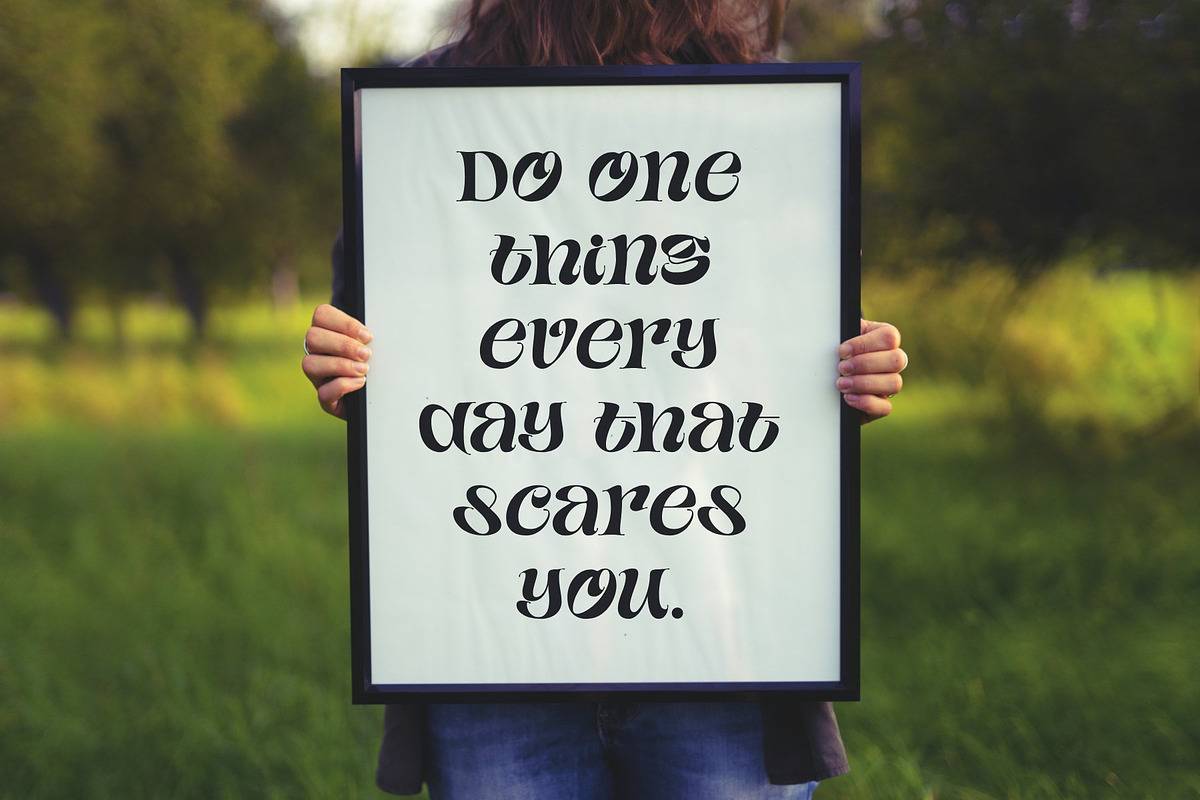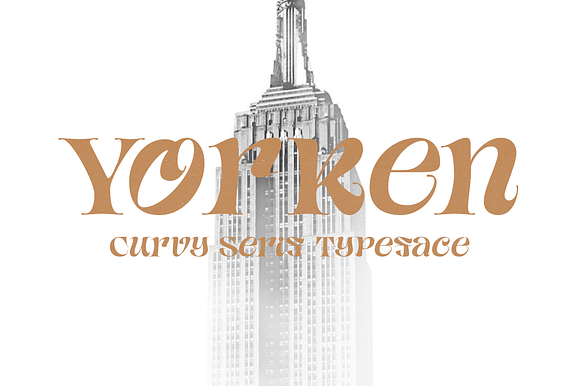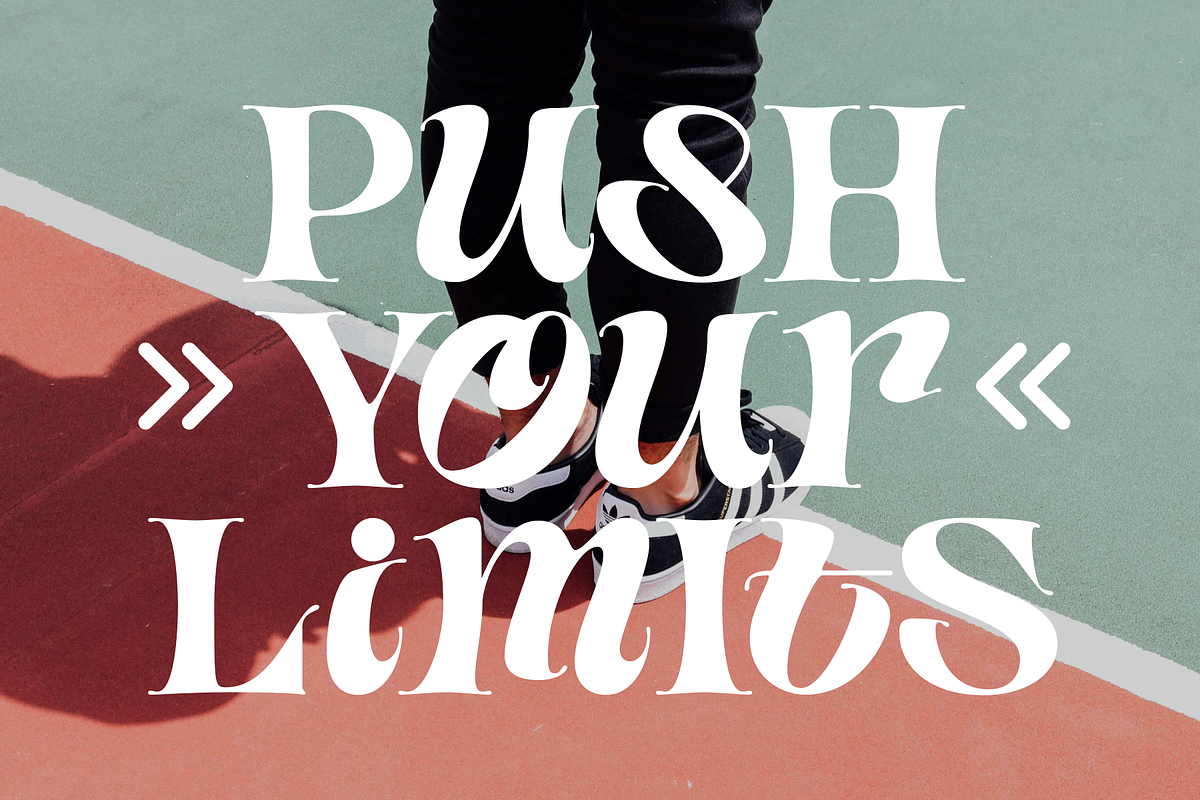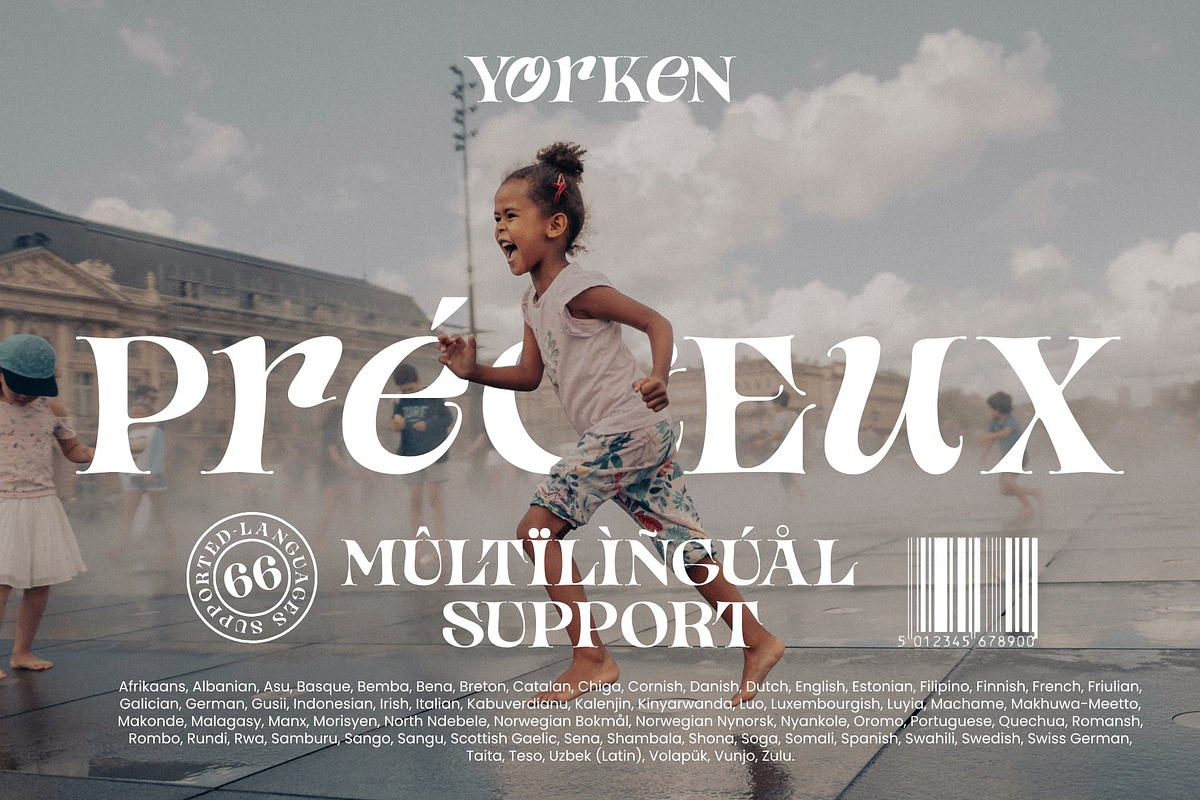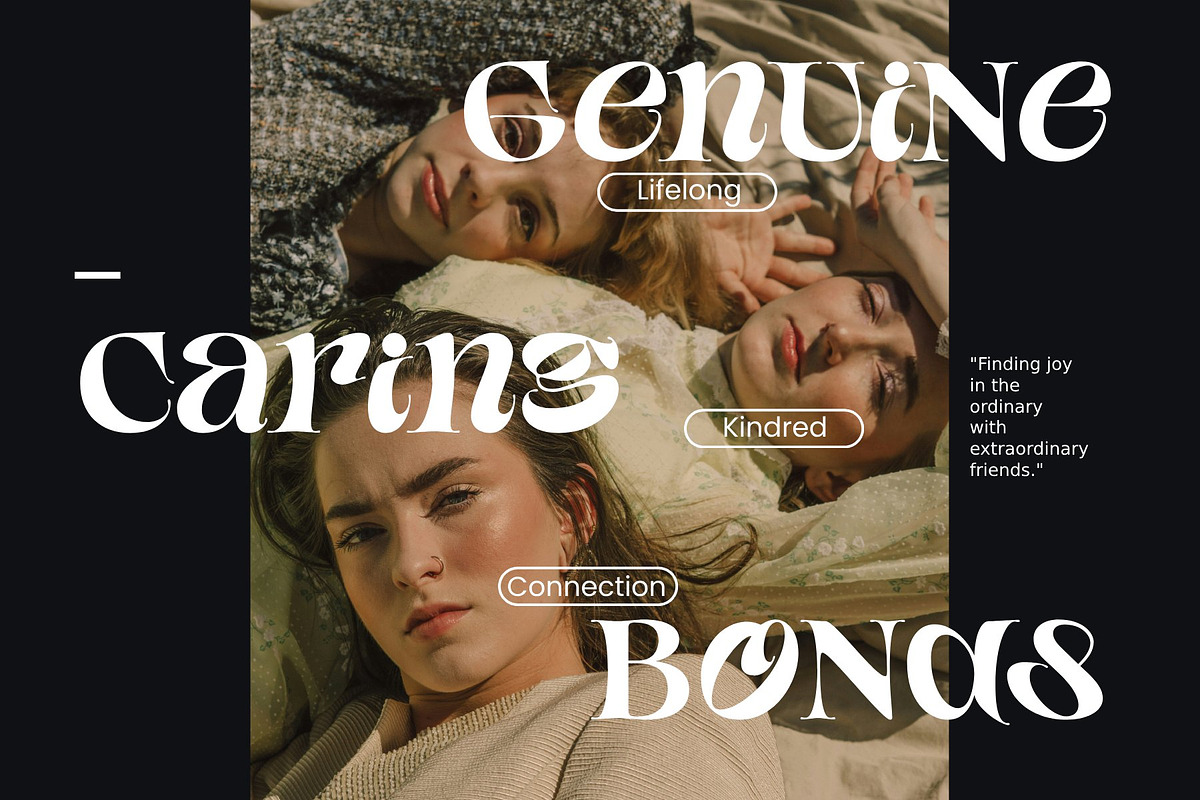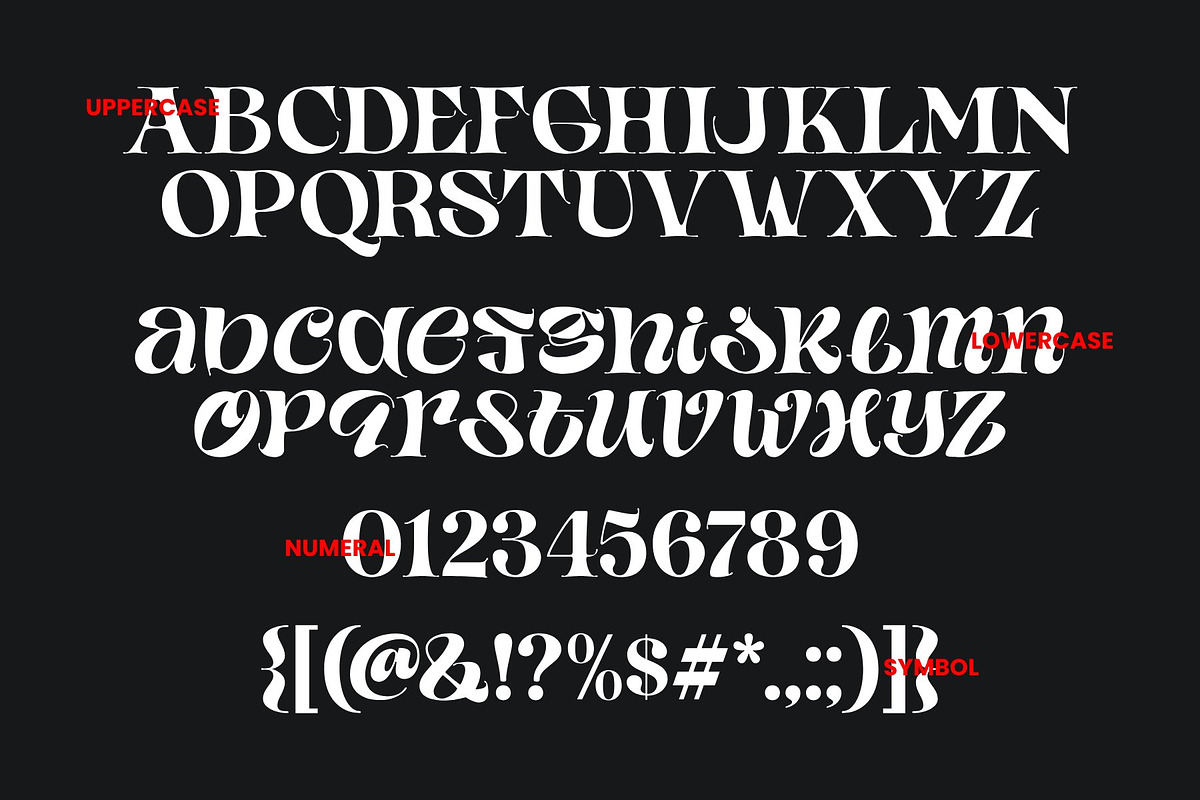
Yorken - Curvy Modern Serif Typeface
Yorken is a curvy serif typeface with traditional inspiration. It uses a mix of upper & lowercase characters with the same cap height for really unique results and stylistic possibilities.
- It uses a mix of upper & lowercase characters with the same cap height for really unique results and stylistic possibilities.